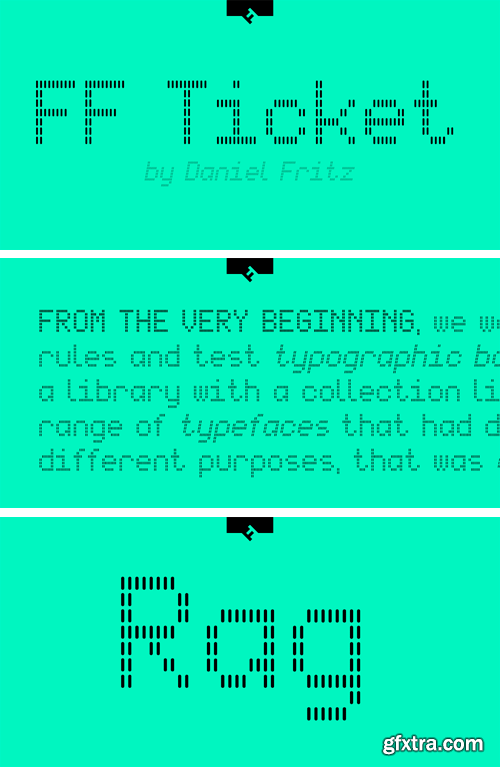
German type designer Daniel Fritz created this display FontFont in 2000. The family has 8 weights, ranging from Thin to Bold (including italics) and is ideally suited for advertising and packaging, editorial and publishing as well as poster and billboards.